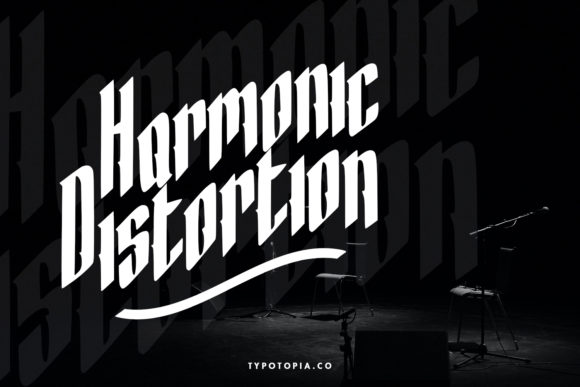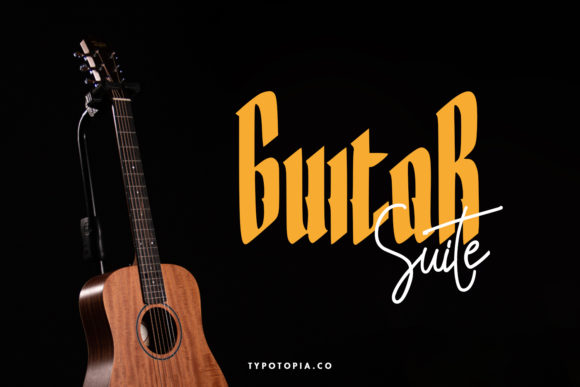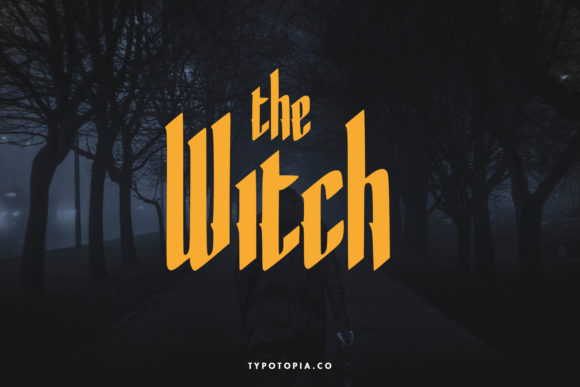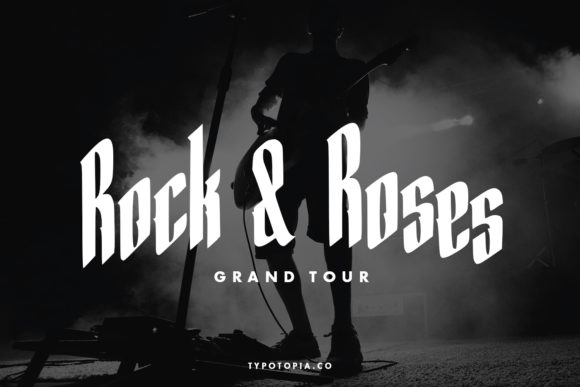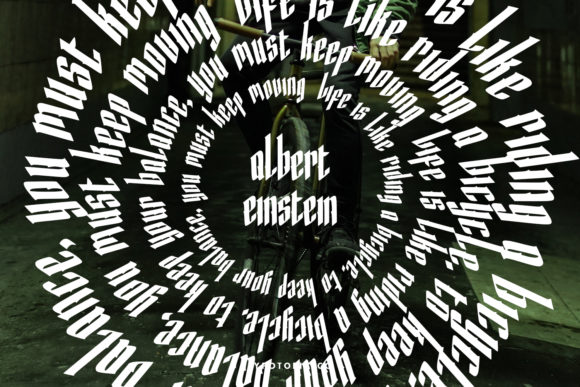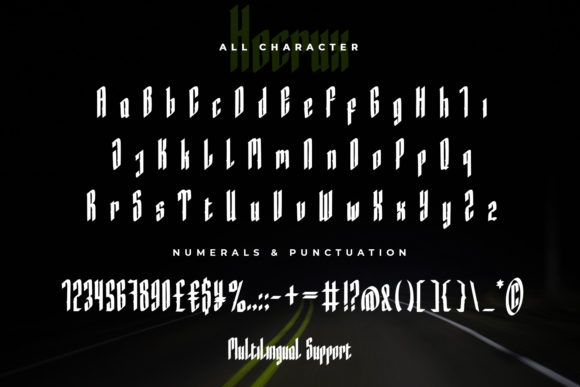
Introduction to Hocrux Font
Have you ever found yourself stuck in a creative rut, staring at a blank canvas or a blank page, unsure of how to bring your vision to life? That’s exactly where I was when I discovered the Hocrux Font. Its bold and unique display style immediately sparked a wave of inspiration, and I knew I had to dive in and explore its full potential.
As designers, we’re always on the lookout for that special something that sets our projects apart from the rest. And let me tell you, the Hocrux Font is that something. With its sleek lines and high-quality design, it’s the perfect addition to any creative project. Plus, with a transparent background, it’s easy to layer and manipulate to achieve the desired effect.
Key Features of Hocrux Font
- High-quality, professional design suitable for creative projects, with a unique and stylish aesthetic.
- Features a high resolution of 300 DPI, ideal for printing and digital applications.
- Designed to be highly legible, making it suitable for use in a variety of contexts, from body text to headings.
- Includes a range of weights and styles, allowing designers to customize the font to suit their specific needs.
Honest Review: Hocrux Font
I recently stumbled upon the Hocrux Font and was excited to give it a try in my latest creative project. Upon downloading the free resource, I was impressed by its sleek design and versatility.
- High-quality design: The Hocrux Font is well-crafted and visually appealing, making it perfect for a variety of design projects.
- Transparent background: This feature allows for seamless integration into any design, ensuring a clean and professional look.
However, I did encounter a few limitations that might impact its usability in certain situations:
- Limited character set: The Hocrux Font only includes a basic set of characters, which might not be sufficient for complex design projects.
- Not suitable for small text: Due to its sleek design, the Hocrux Font might not be ideal for small text sizes, where legibility becomes a concern.
Overall, the Hocrux Font is a solid design resource that excels in its simplicity and versatility. While it may have some limitations, it’s definitely worth considering for your next creative project.
How to Use Hocrux Font
To get the most out of Hocrux Font, use it for high-quality design projects that require a unique and stylish font. Some common use cases include creating a logo, designing a brochure, or adding text to a social media graphic. Remember to experiment with different font sizes, colors, and styles to achieve the desired effect.